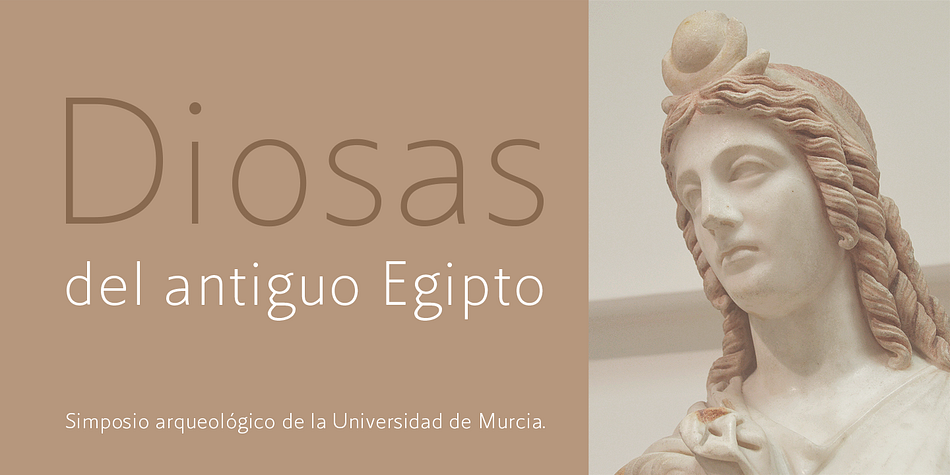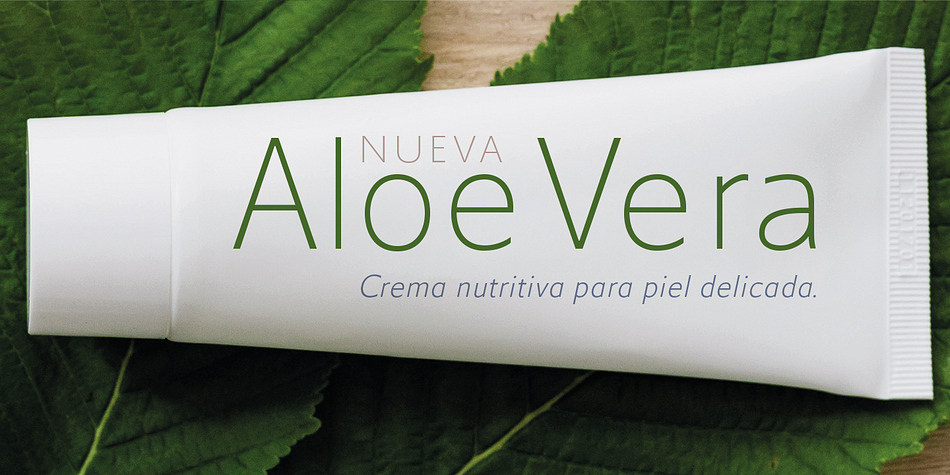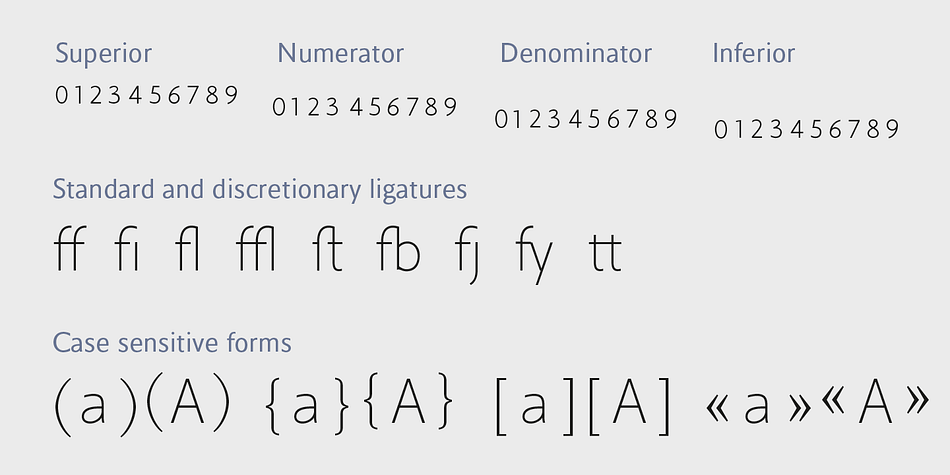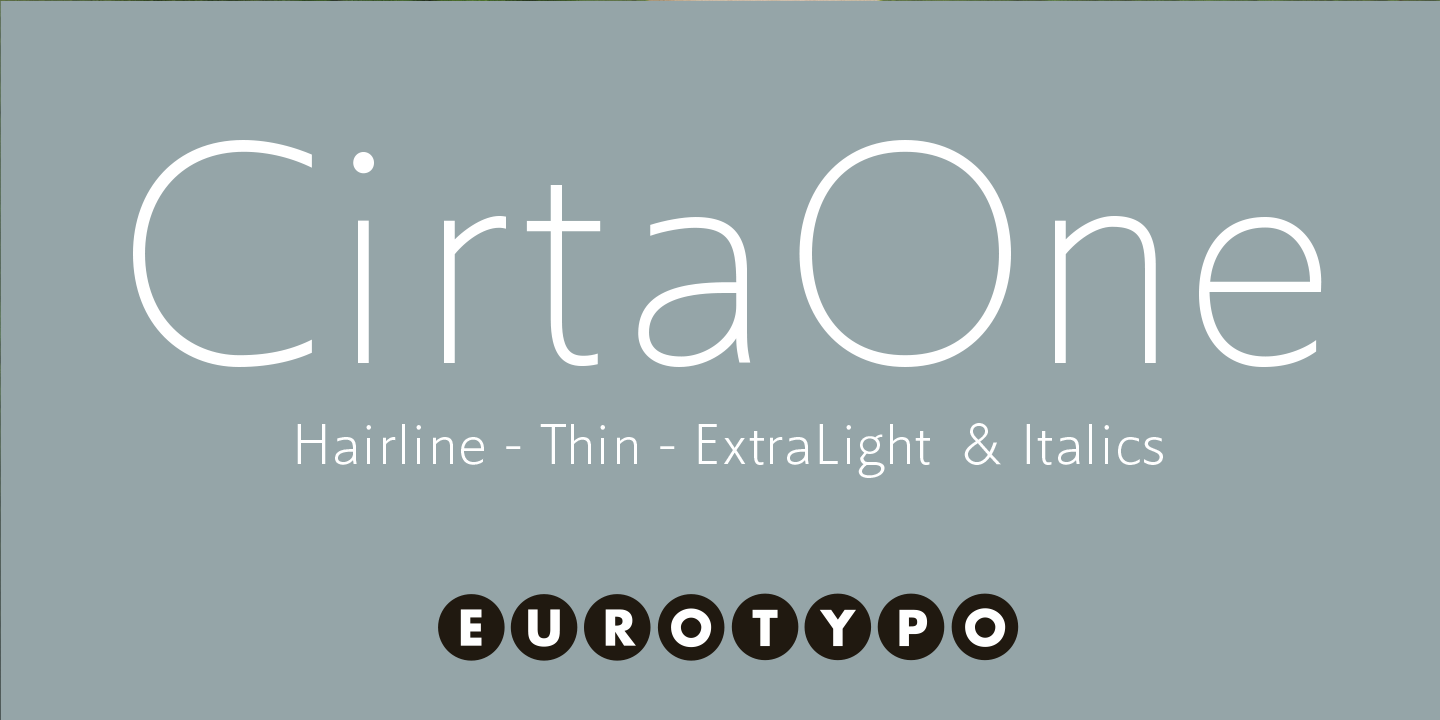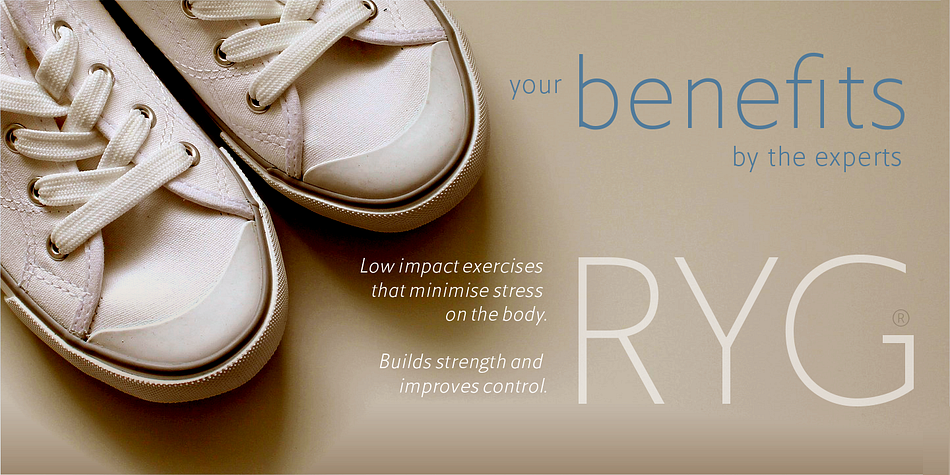
Cirta One
Designed by Olcar Alcaide, Cirta One is a sans serif font family. This typeface has six styles and was published by Eurotypo.
Cirta One is a dedicated sans-serif font family of three weights: Hairline, Thin, Extra Light & Italics
You may use in advertising, posters, street signs, websites or cover magazine for its elegance, visual attraction and legibility.
These fonts were specially designed to combine with Cirta and Cirta Two families.
Includes alternative glyphs for standard and discretionary ligatures, as well as sets of numbers such as numerator, denominator, superscript, and subscript. In addition, it offers mathematical symbols for various mathematical applications.